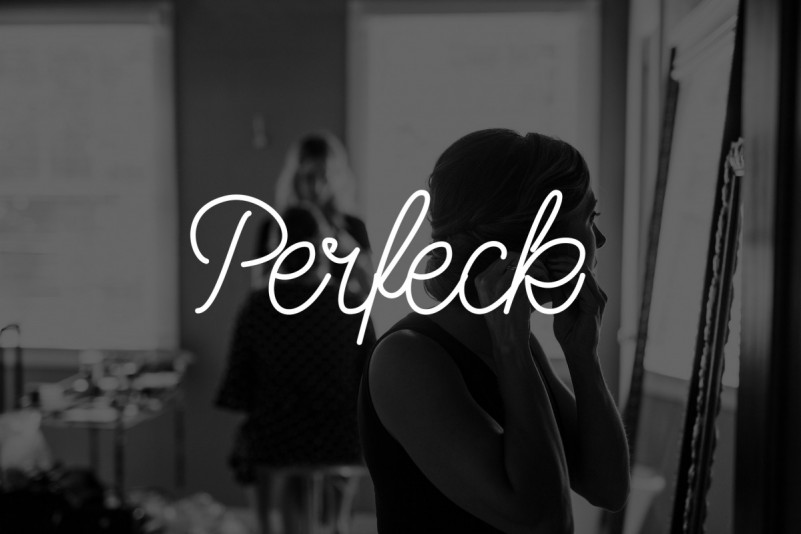
Calega Script Font
Calega” is a modern script font, every letter has been carefully crafted to make your text look beautiful with an elongated connection model. With a modern script style this font will be perfect for various projects, for example: weddings, invitations, greeting cards, posters, business cards, quotes, blog headers, branding, logos, fashion, clothing, letters, stationery,